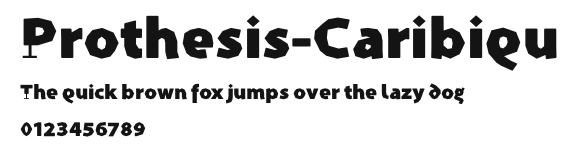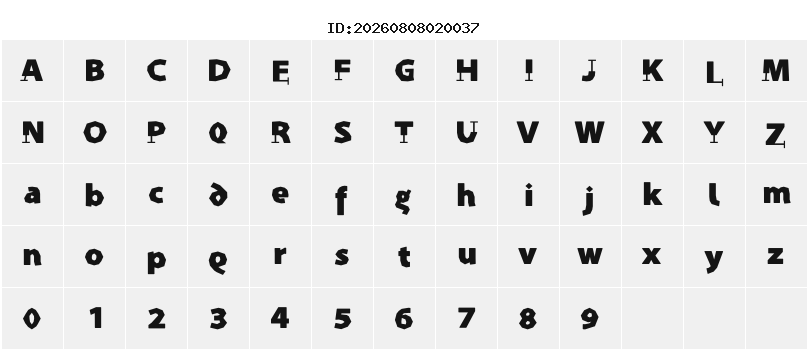
• Font Name: Prothesis-Caribiqu
• Full Font Name: Prothesis-Caribiqu
About Prothesis-Caribiqu.ttf
Prothesis-Caribiqu.ttf is a modern, elegant sans-serif font designed for ultimate readability and visual harmony. Perfect for branding, headlines, web design, and print materials.